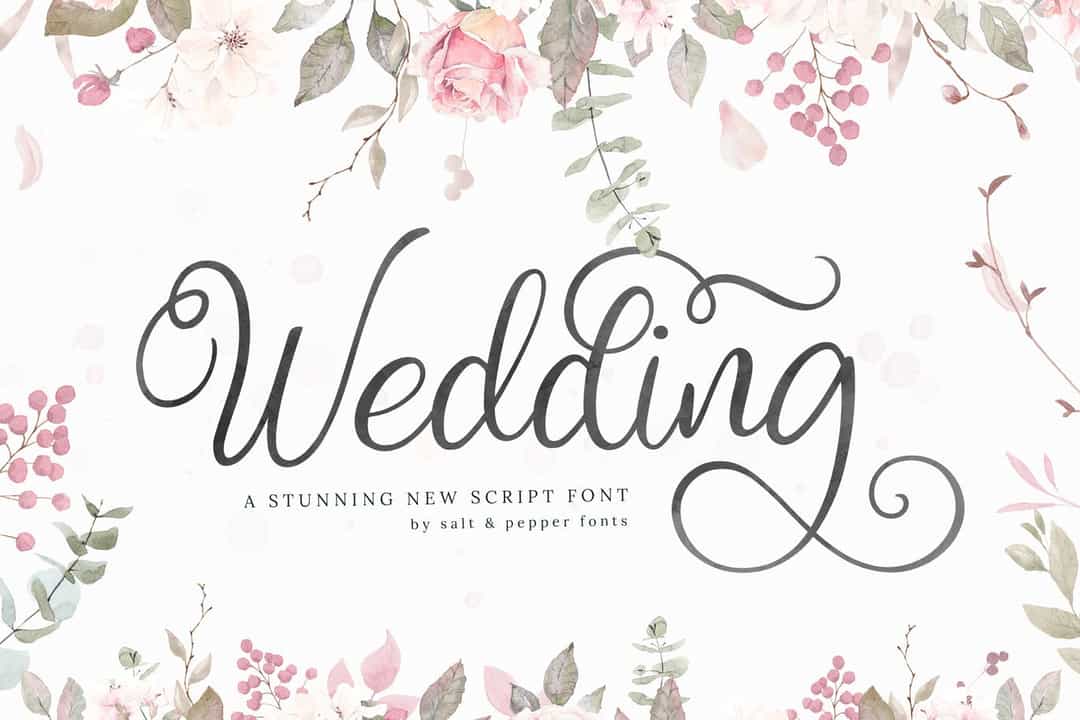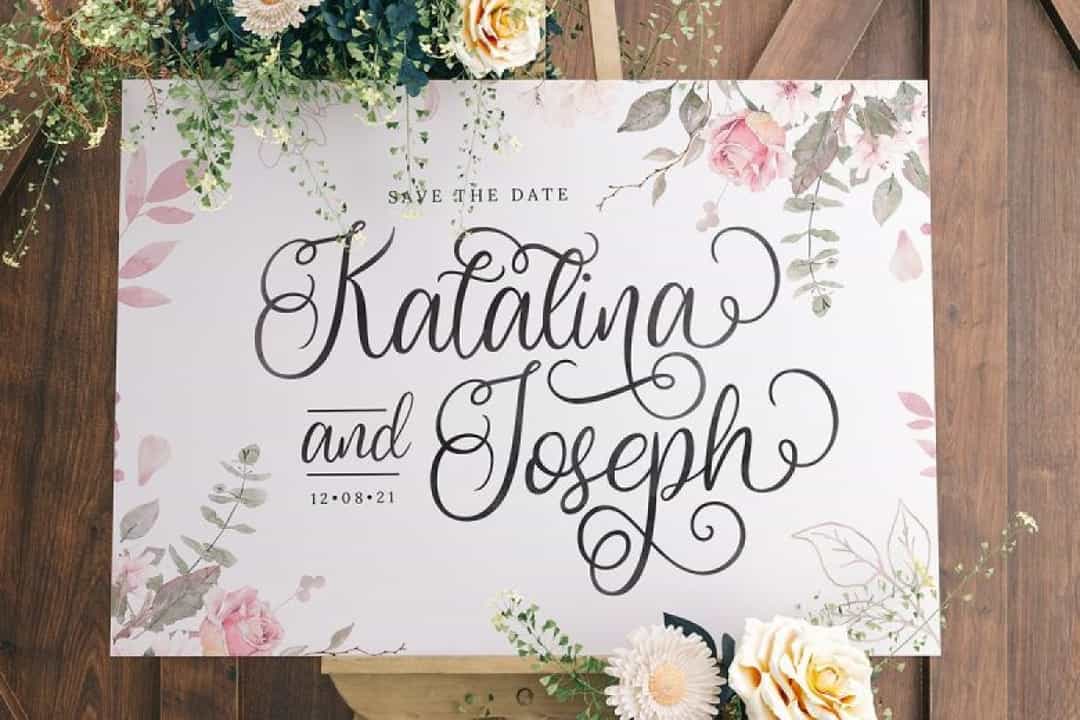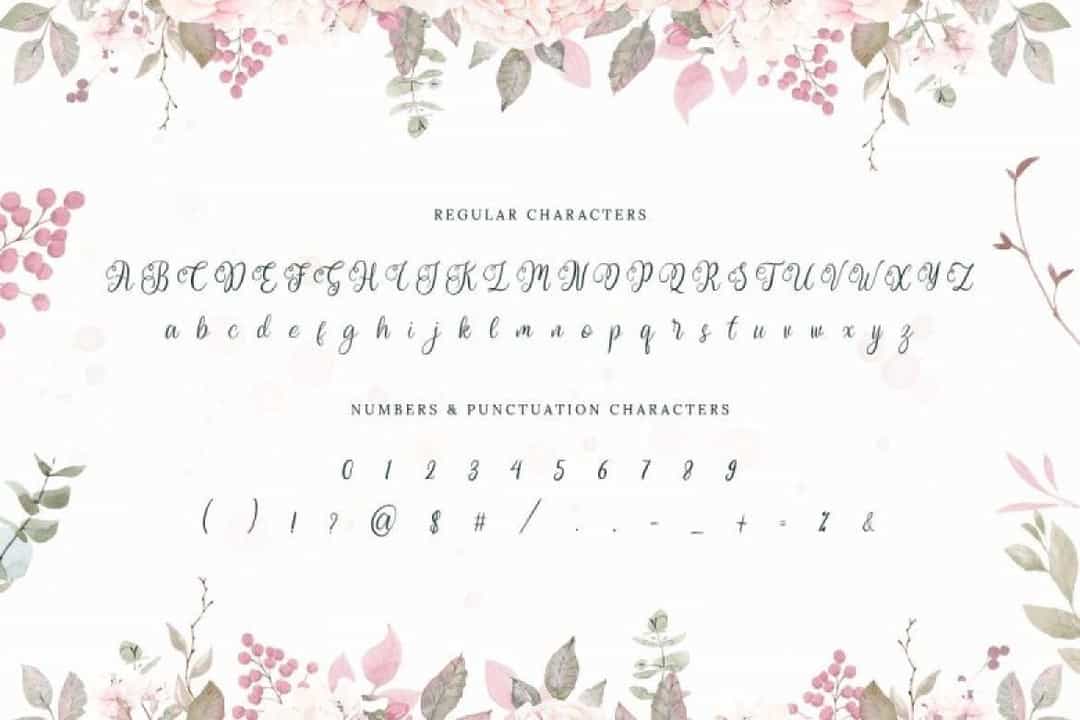
Wedding Font is an elegant and romantic calligraphy typeface with characters that move along its base, perfect for adding some luxury energy to any design project. PUA encoded, it allows access to all its amazing glyphs and ligatures quickly!